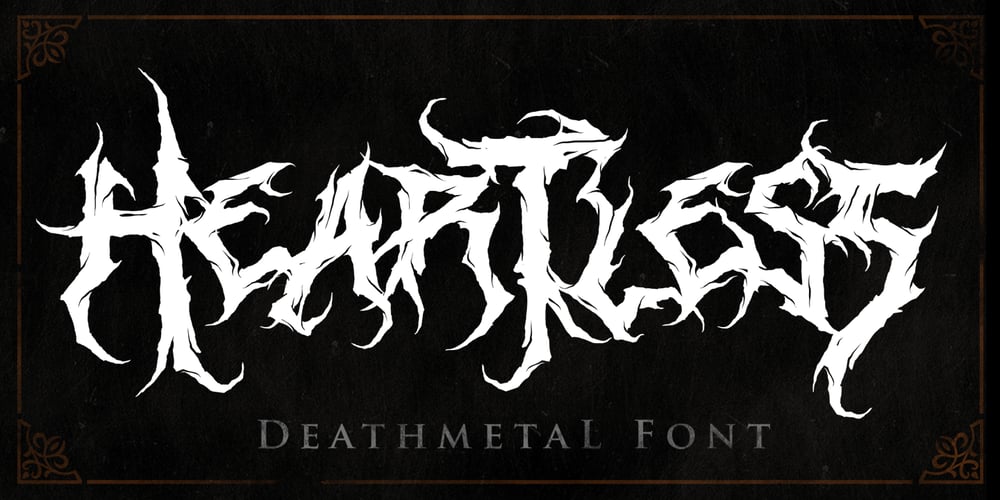
Heartless Blackmetal Font Family was designed by Muhammad Sirojuddin and published by Lettersiro. Heartless Blackmetal contains 1 styles and family package options. Heartless Font font is inspired by most of deathmetal logo. Heartless is great looking, amazing, sick but readable, and each character was designed with great compotition. Of course, this font is very suitable for you that like deathmetal music, design, your clothing, logo, and many others.